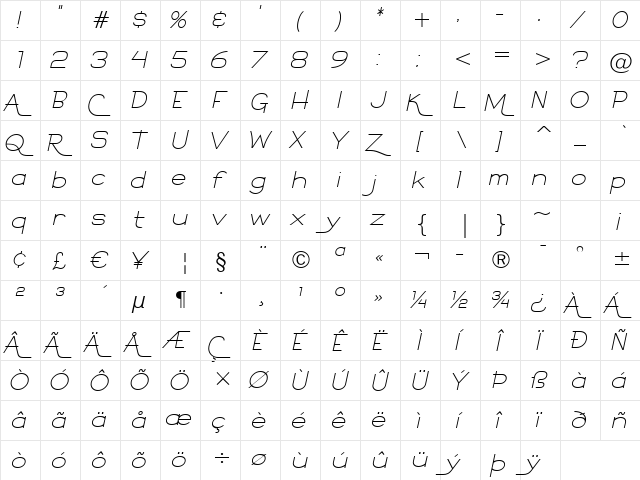
Calamity Teen BTN Lt Oblique
Design Context for Calamity Teen BTN Lt Typeface
Calamity Teen BTN Lt is a composed and adaptable typeface that performs quietly and consistently across a wide range of design contexts. Its italic angle brings a sense of urgency and motion to the letterforms. The delicate stroke weight brings airiness and refinement to layouts.
Pro Tip: Use Calamity Teen BTN Lt for emphasis, pull quotes, and subheadings where its slanted energy can add rhythm to the layout.